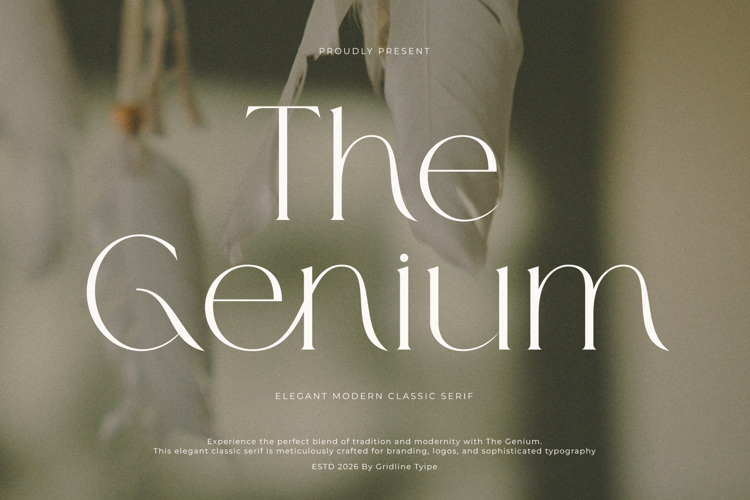
The Genium Font
The Genium is an ultra-refined high-contrast serif with a modern Didone character. Exceptionally fine hairlines, tall narrow proportions, and sweeping swashes create an opulent, high-fashion feel — ideal for luxury logos, branding, wedding stationery, magazine headlines, and beauty editorial. Free for personal use; a commercial license is available from the designer.